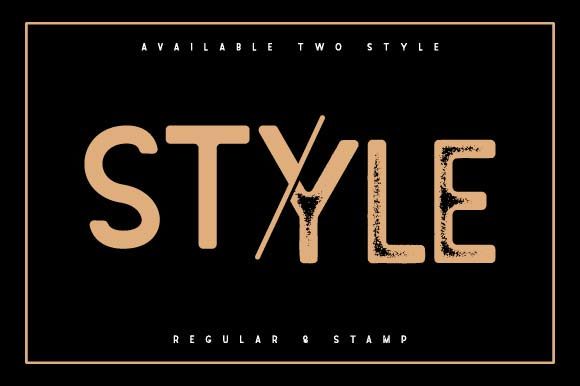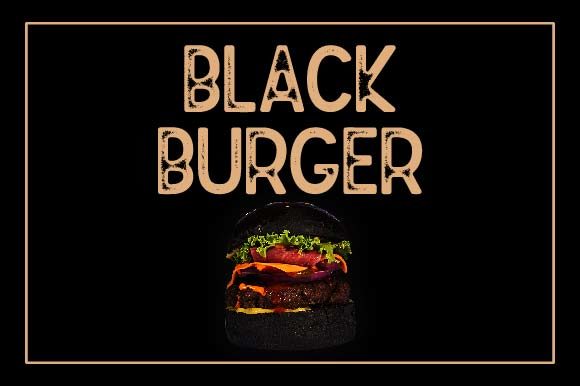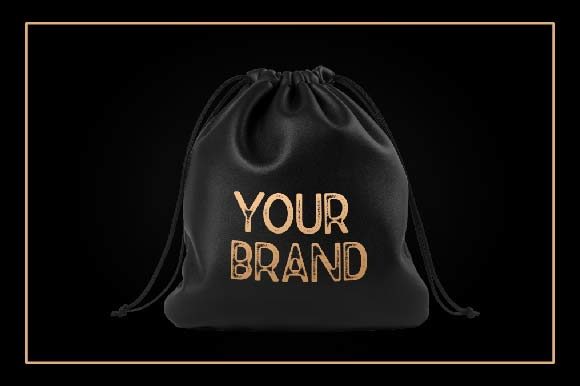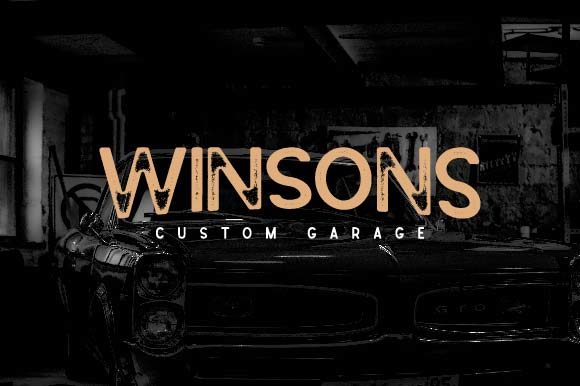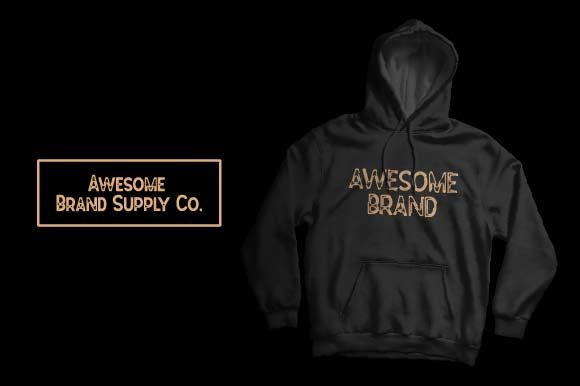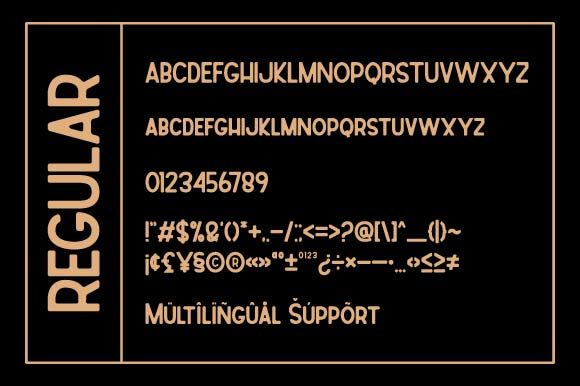
Introduction to Johny Palkons Font
Johny Palkons is a neat, fresh and daring display font.
Vintage styled and genuine, this font will fit a wide range of design ideas .
Key Features of Johny Palkons Font
Why Choose Johny Palkons Font?
Johny Palkons Font offers exceptional quality and versatility, making it a valuable addition to your design toolkit. Whether you’re creating for personal projects or commercial use, Johny Palkons Font delivers professional results.